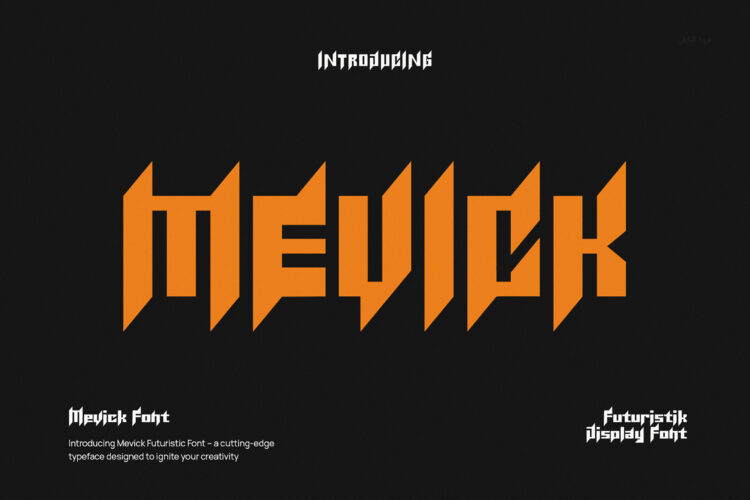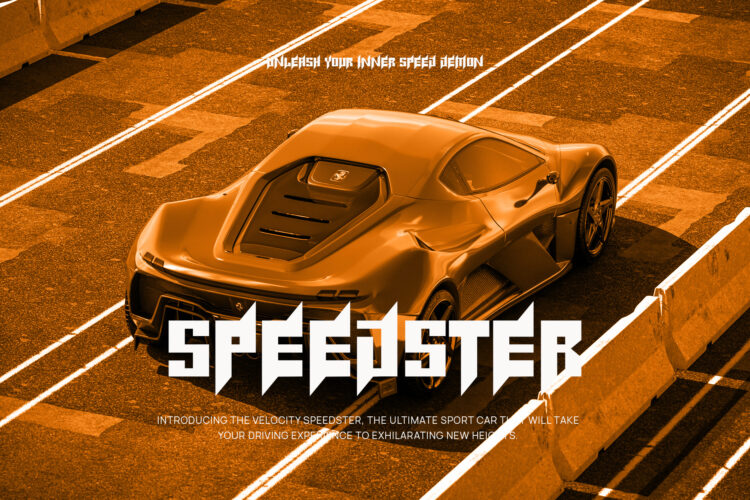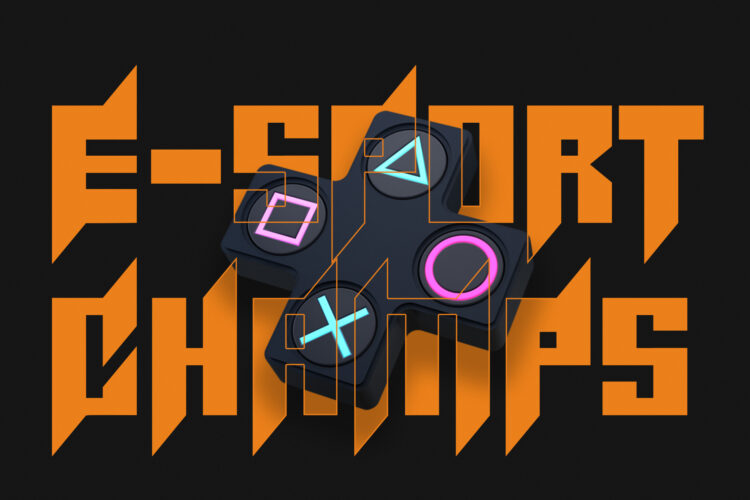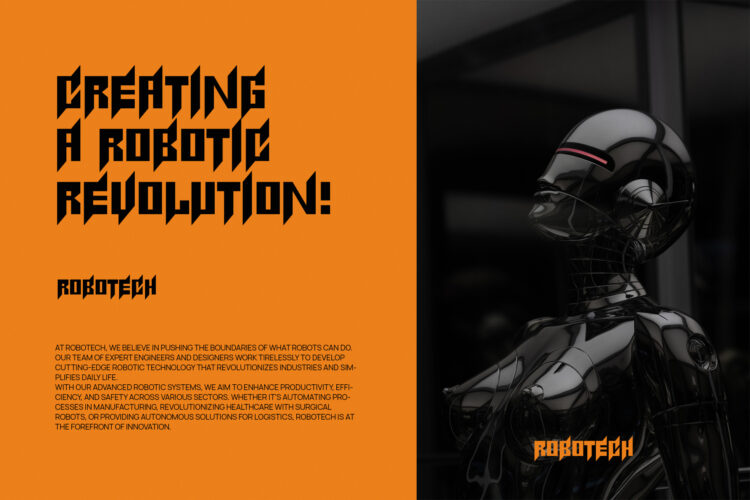
Introducing our new Mevick, modern sans serif font with futuristic style this is perfect for branding, logos, invitation, magazines, product packaging and more.
Mevick – Futuristic Font